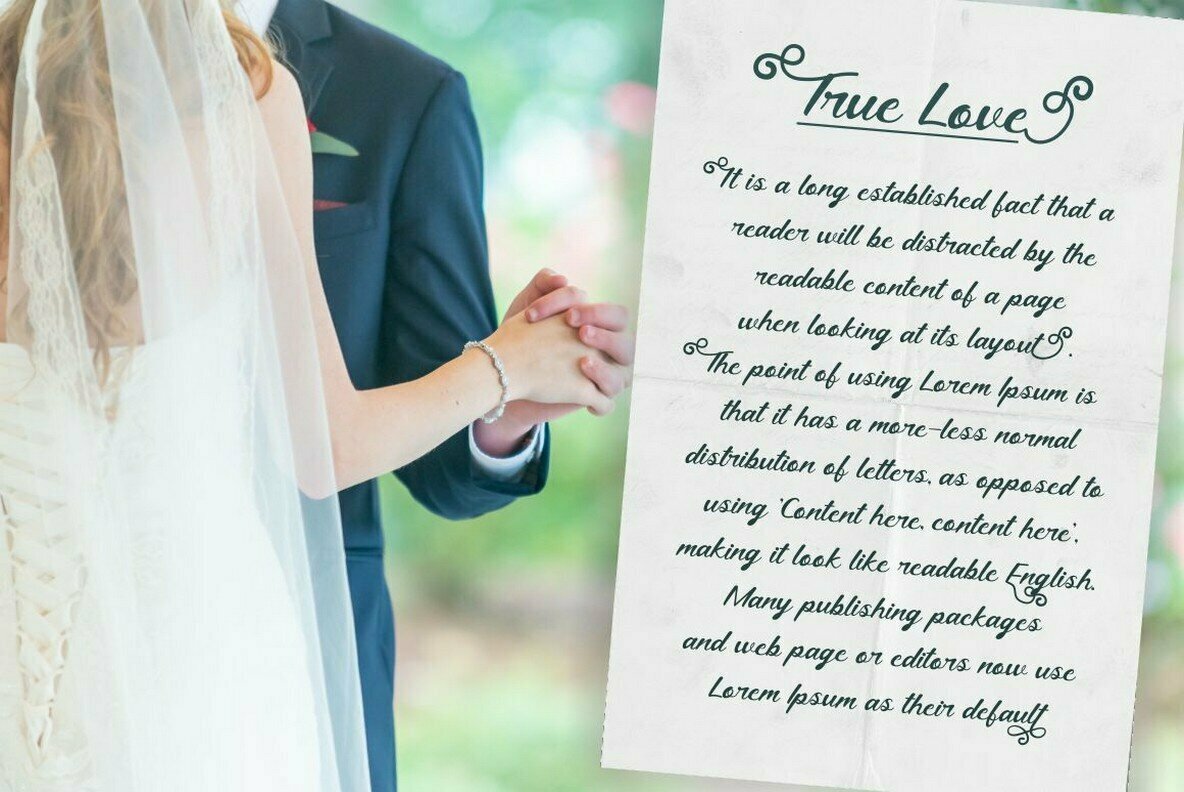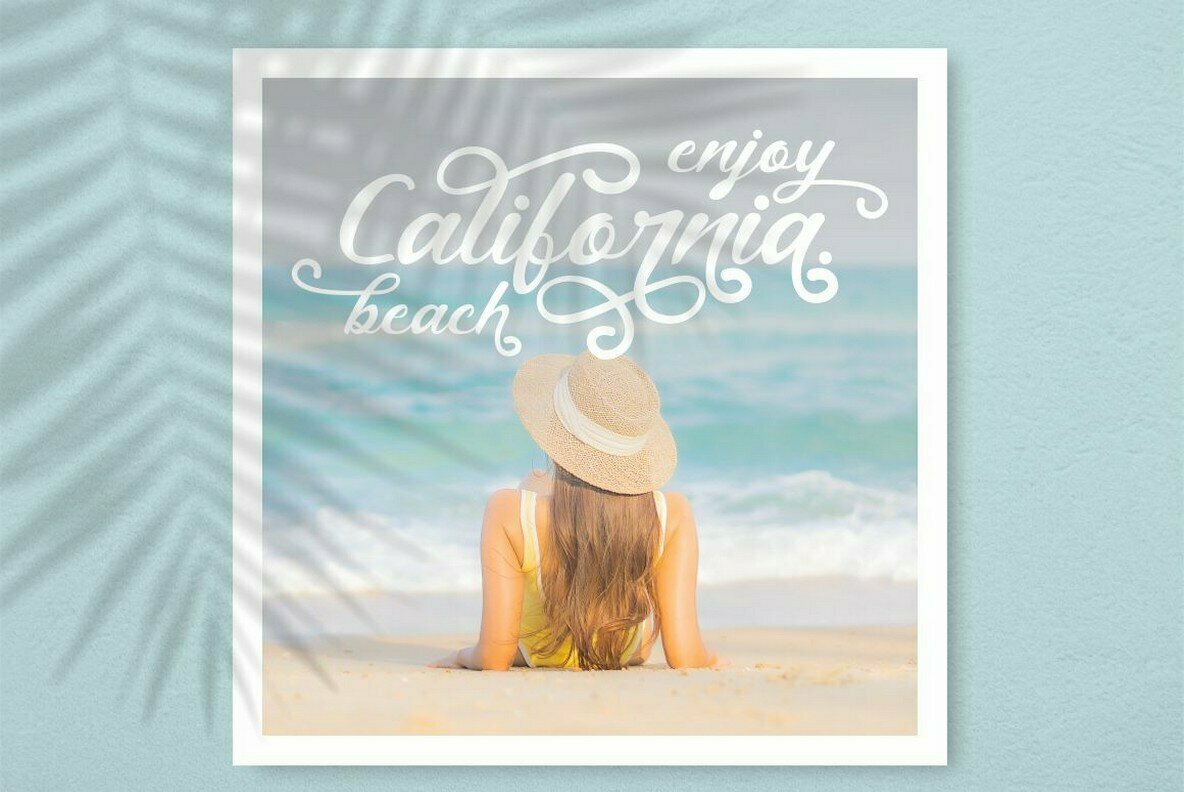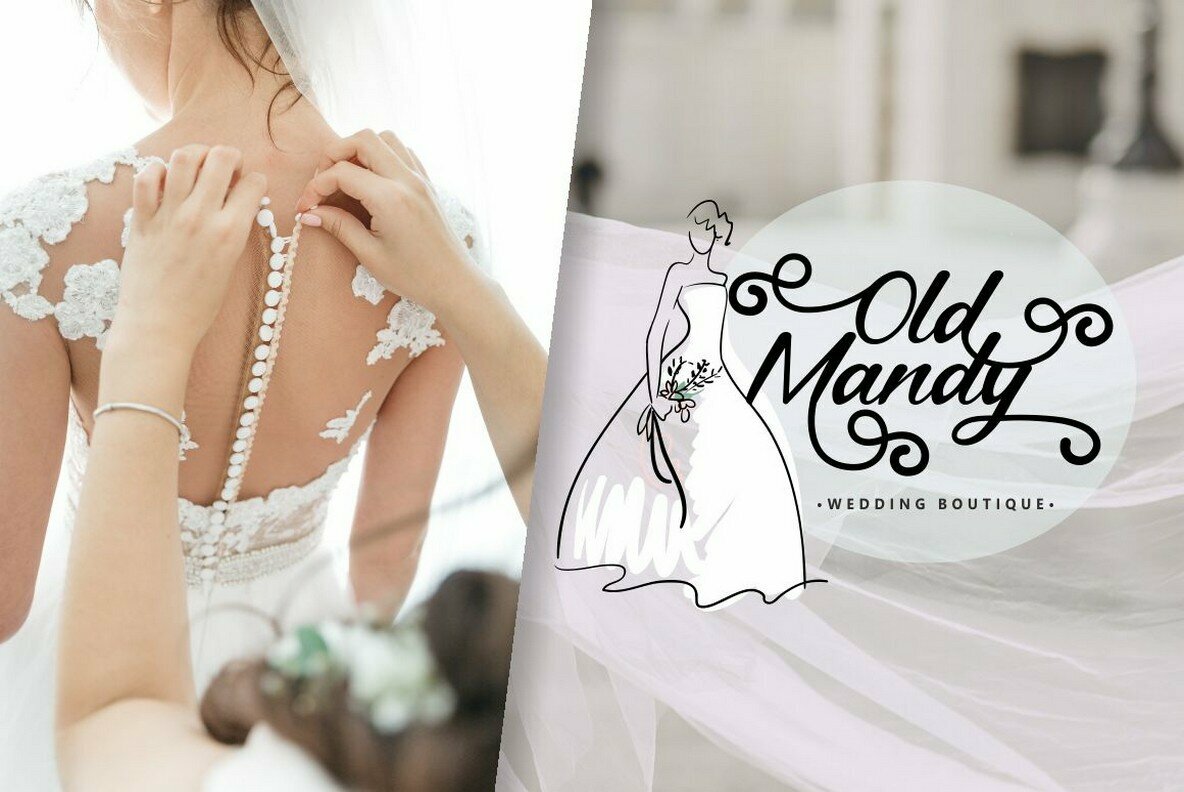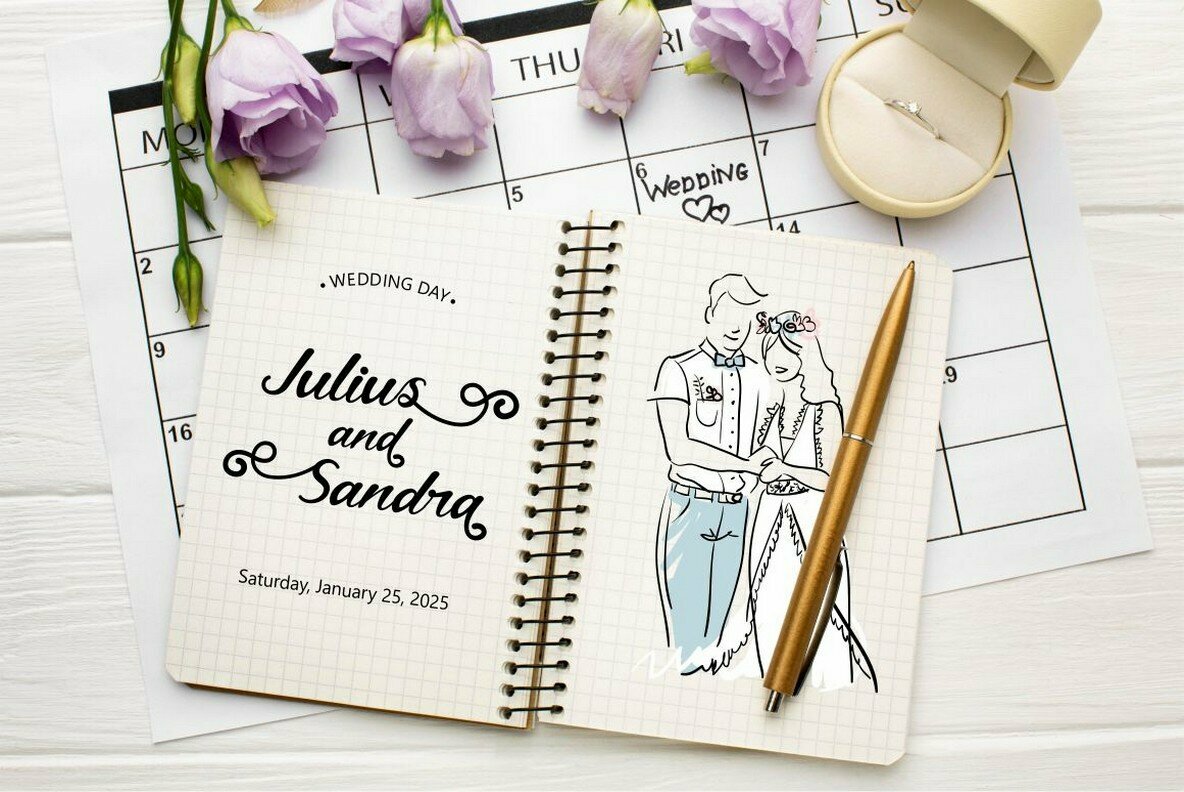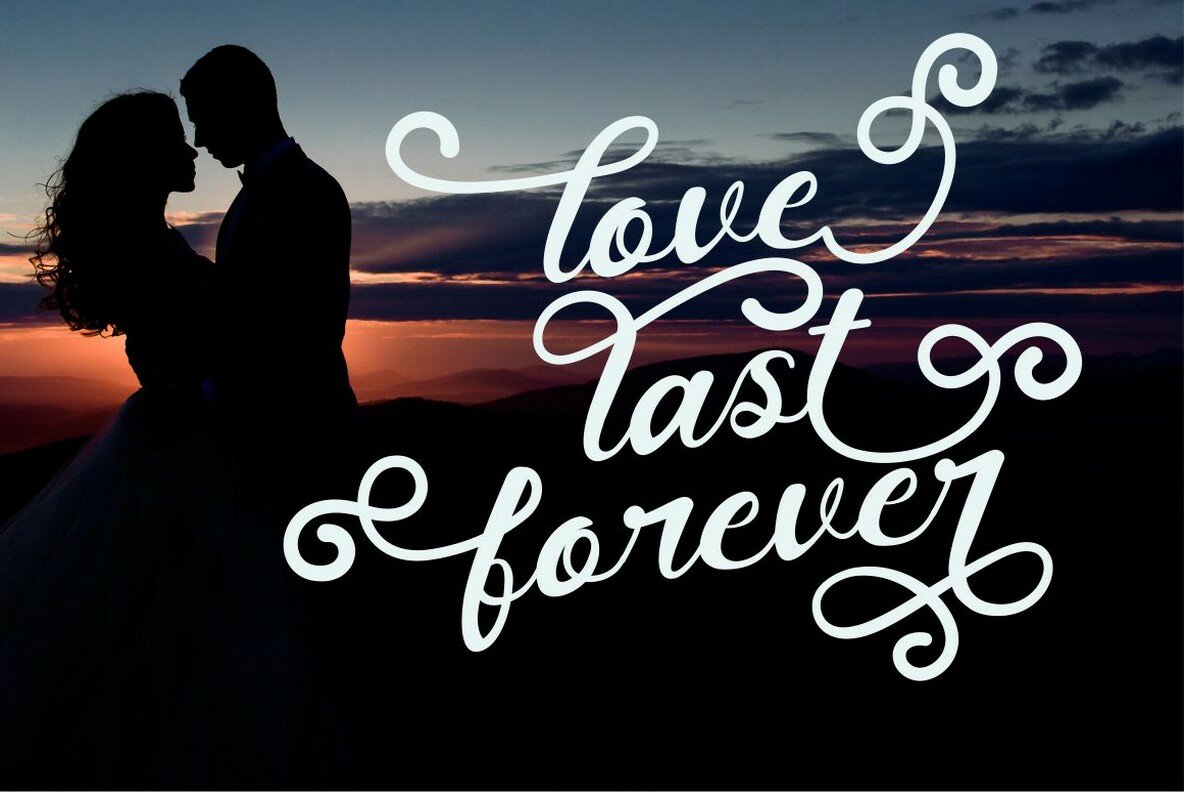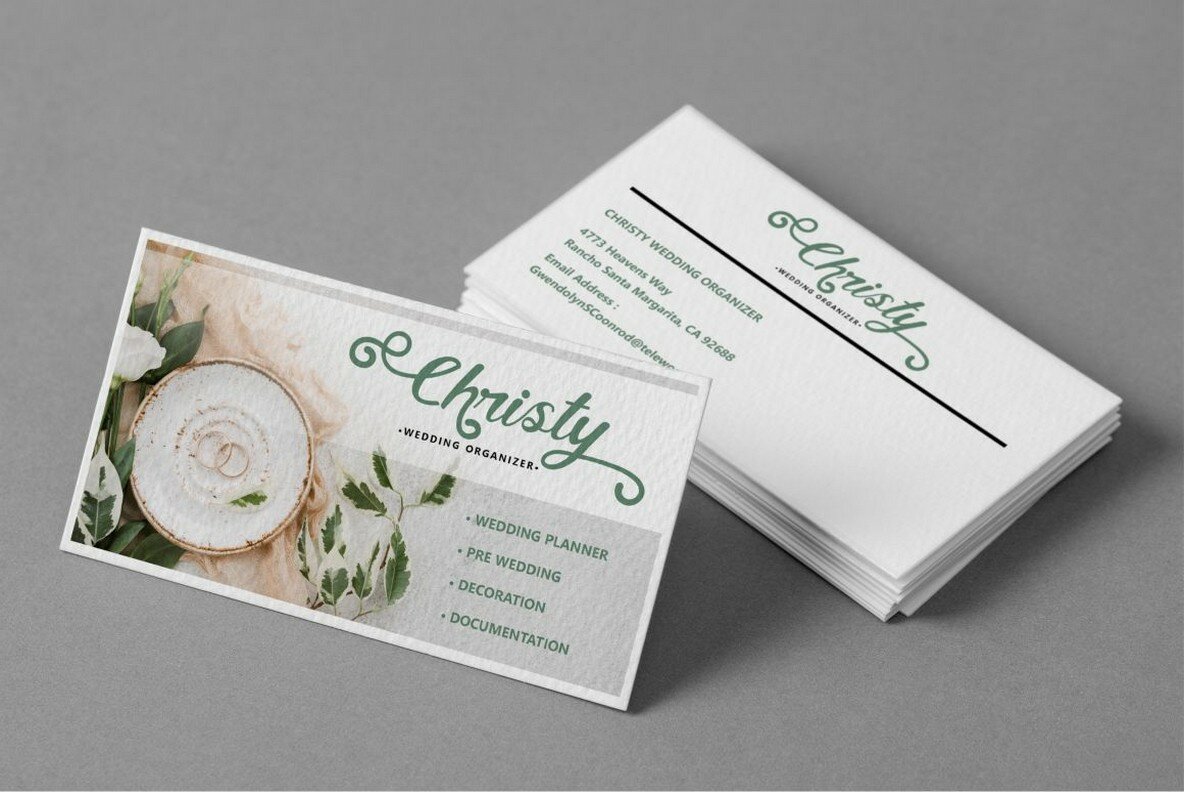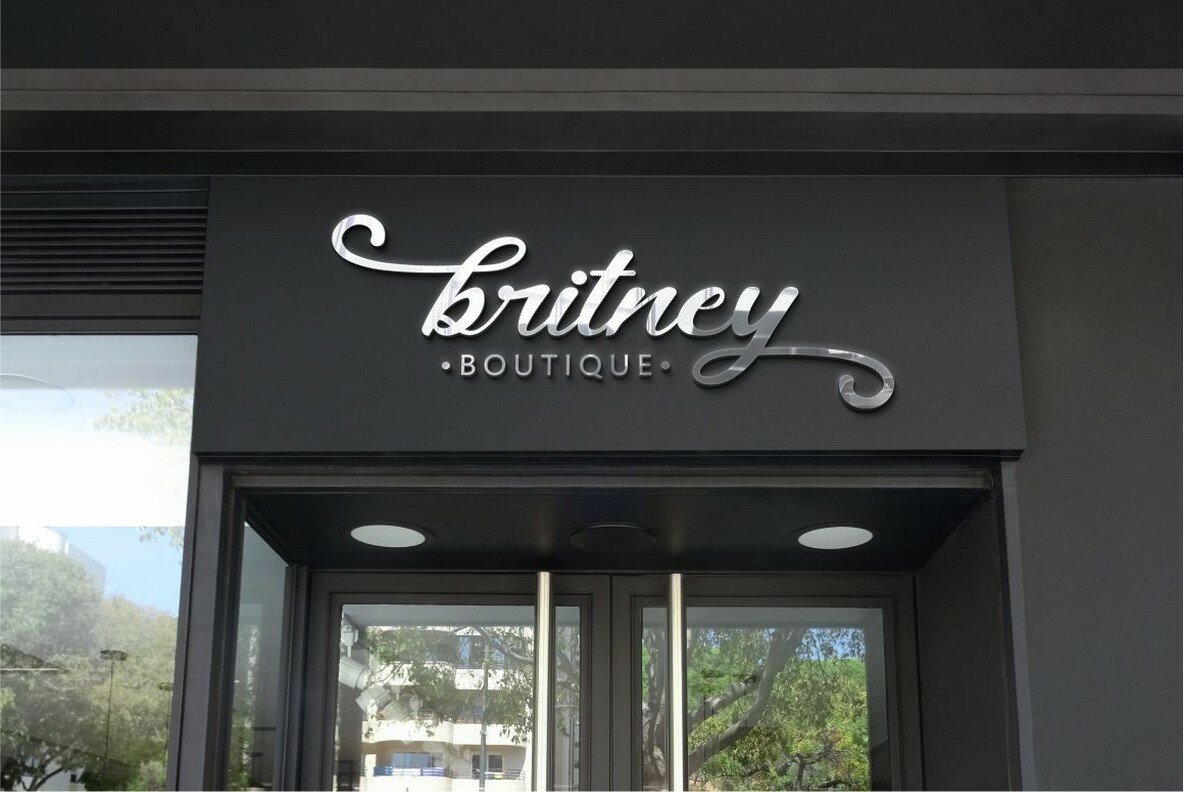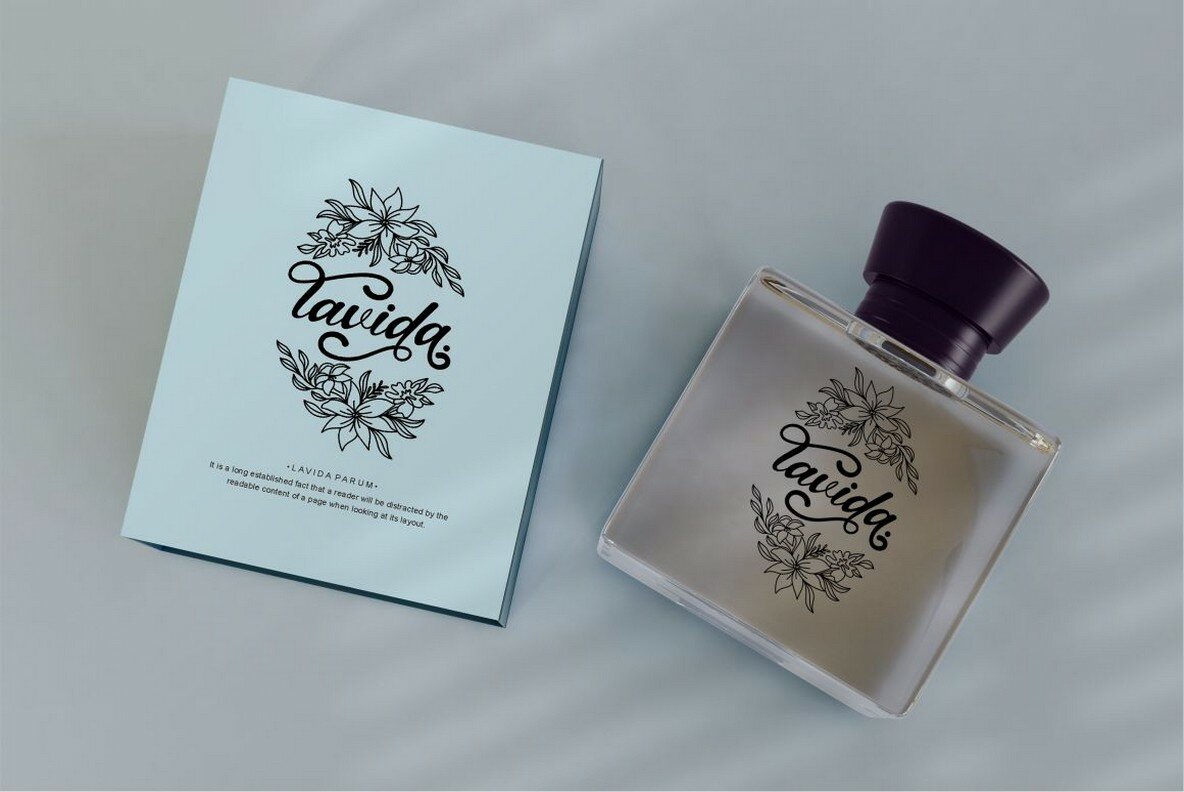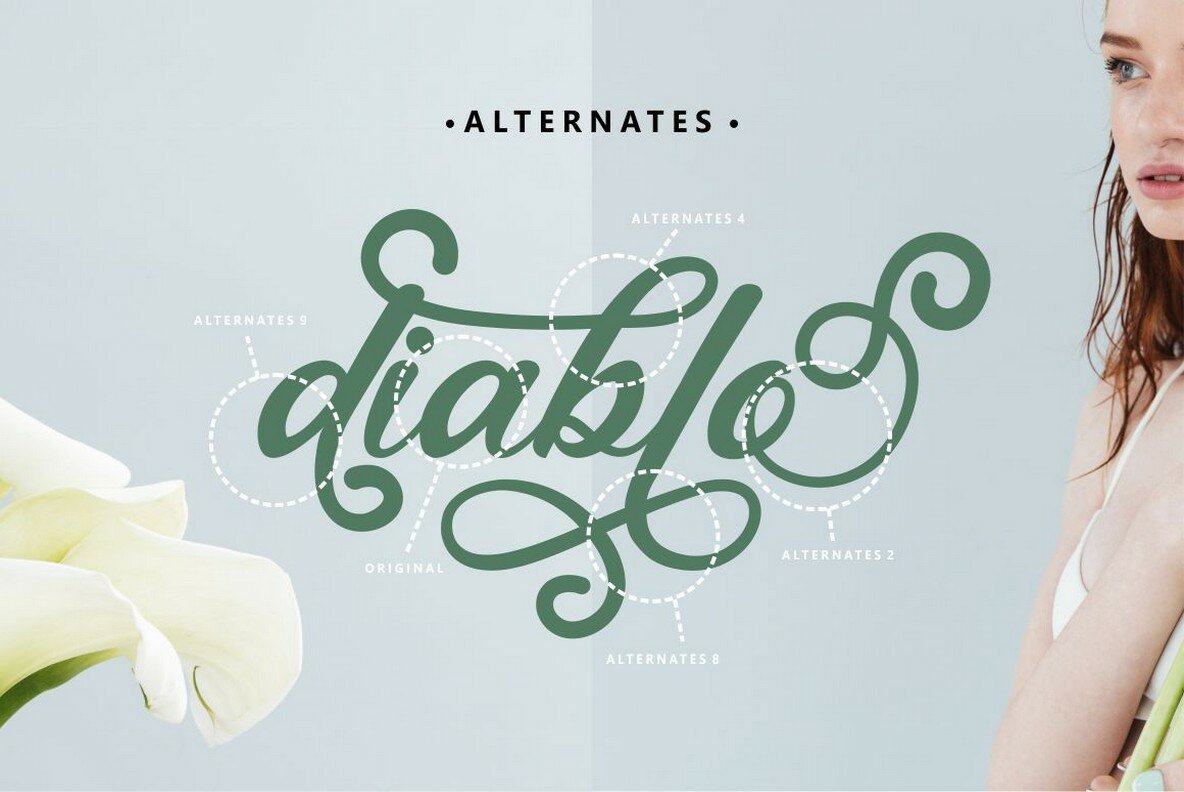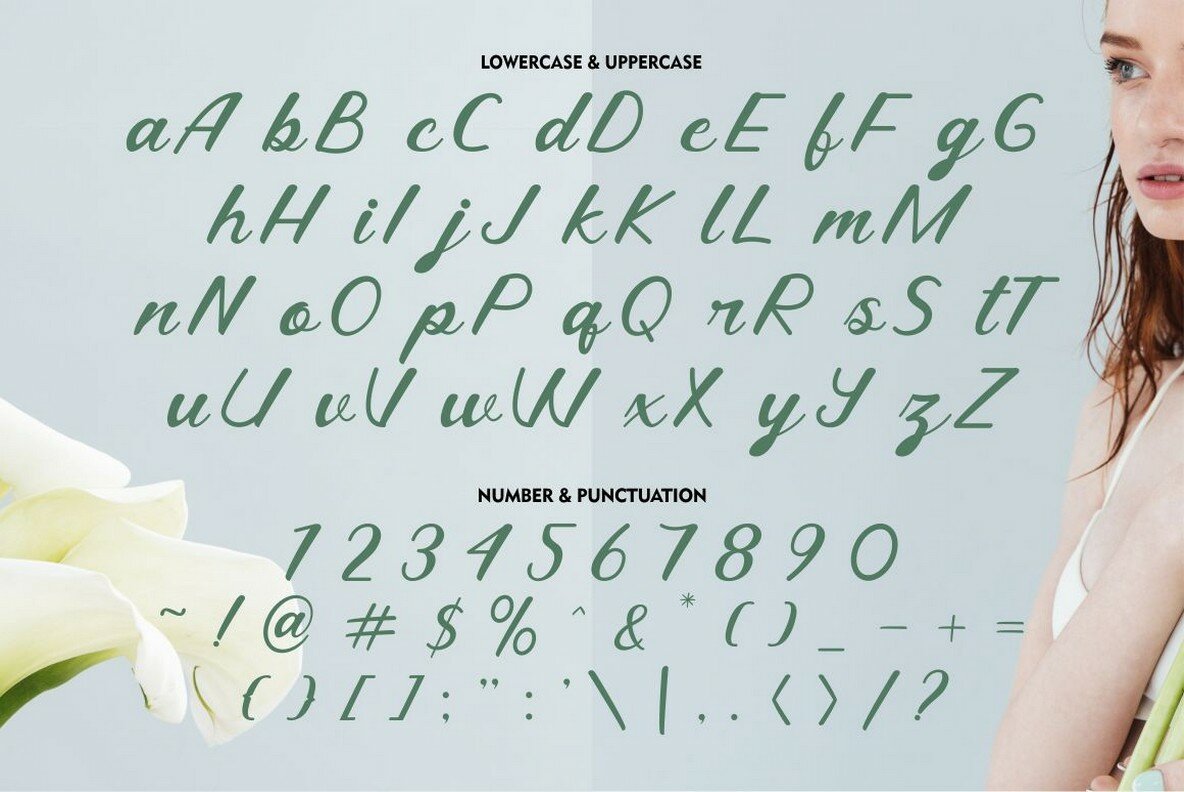
Charming Anneta Font
Charming Anneta
The Charming Anneta script offers a delicate blend of feminine elegance and contemporary style. This font's subtle swirls and warm alternates render it ideal for diverse artistic endeavors, ranging from wedding stationery to personal branding. Charming Anneta is perfect for bringing a luxurious, handwritten touch to a variety of projects.Charming Anneta: A Modern Script for Special Occasions